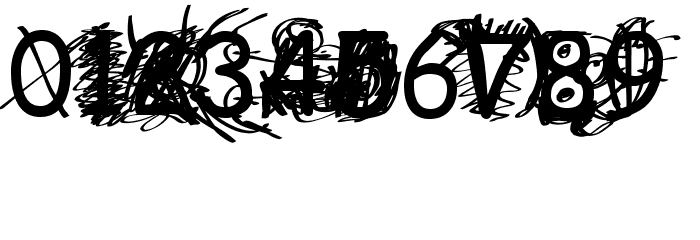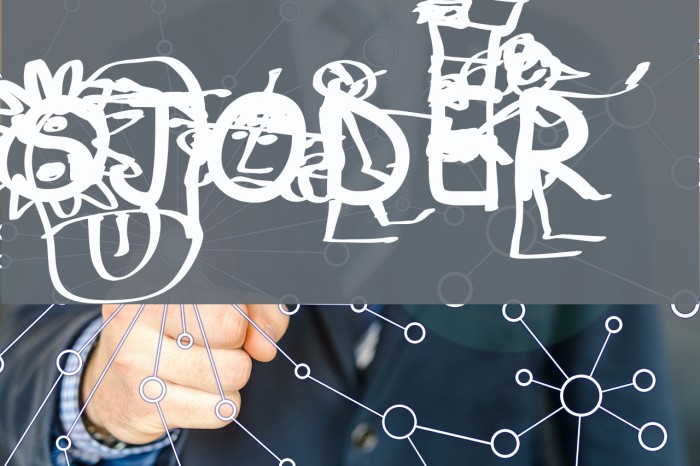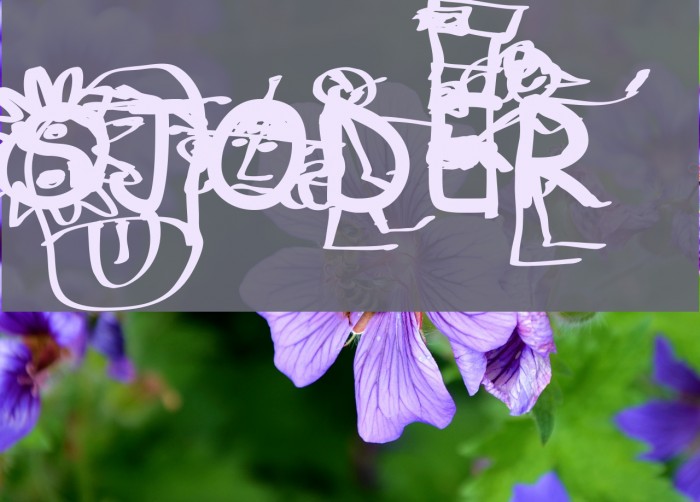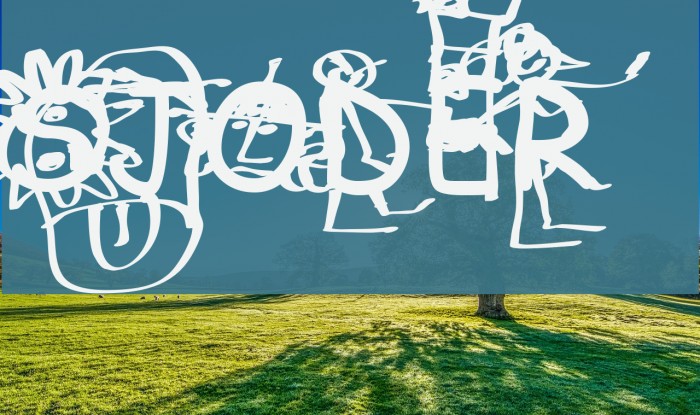
fuckSansJODER Font
This font presents a chaotic and abstract design, characterized by overlapping and intertwined strokes that create a sense of disorder and complexity. The letters are heavily distorted, making them difficult to distinguish individually. The overall appearance is artistic and expressive, resembling a form of abstract graffiti or a chaotic sketch. The font lacks uniformity and traditional structure, with each character appearing unique and unpredictable. This style is highly decorative and unconventional, appealing to projects that seek to convey a sense of rebellion, creativity, or avant-garde aesthetics.
A chaotic, abstract font with overlapping strokes and a graffiti-like appearance.
• Proposed Projects: Ideal for artistic projects, album covers, rebellious branding, or experimental design work.
• Category: Decorative/Display
• Overall Style: Avant-garde, Artistic
• Use Case: Logos, Artistic projects, Experimental design